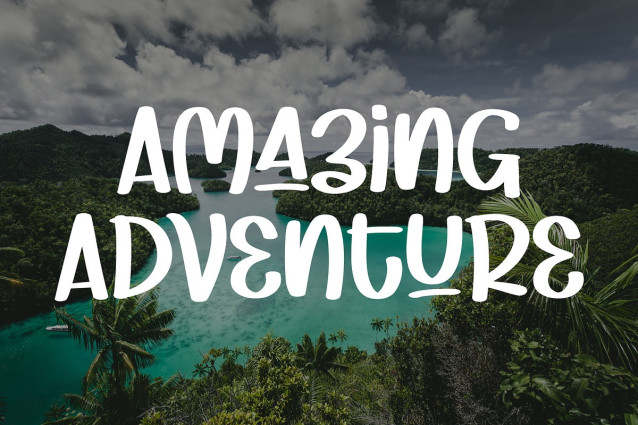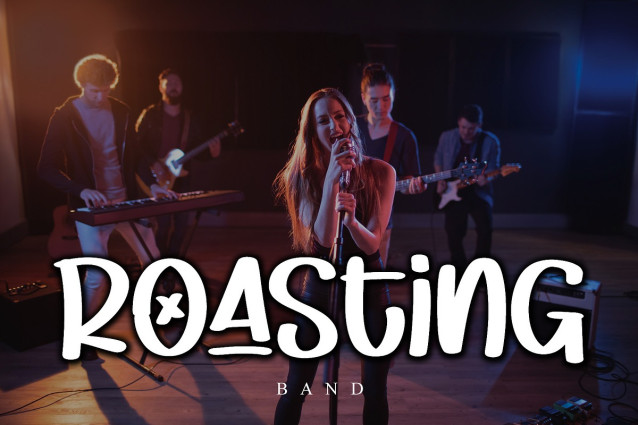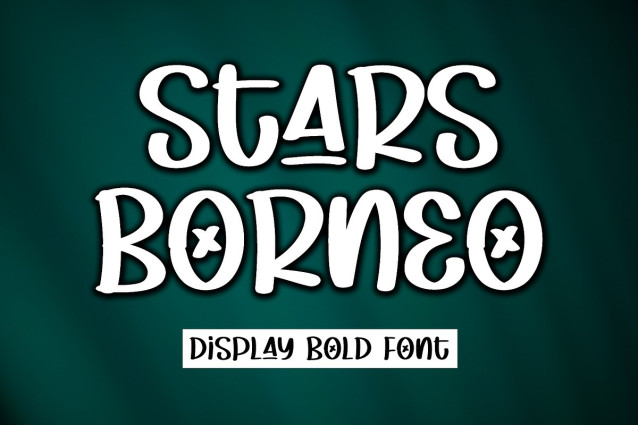
Stars Borneo Font
Stars Borneo Font shines brightly in the galaxy of display fonts, poised to skyrocket your design aspirations to new heights. Tailor-made for incorporating a striking aesthetic in logos and breathing fresh inspiration into quotes, this font infuses an element of charm that binds viewers. Whether you’re designing eye-catching posters or architecting fashionable clothing prints, Stars Borneo is your trusty sidekick. Unleash this font within your artistic repertoire and marvel at the transformation that unfolds in your creative endeavors!